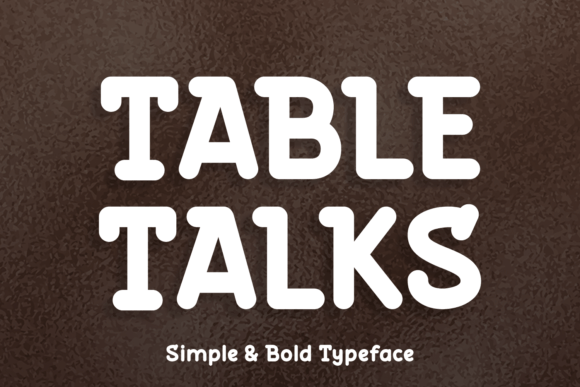
Table Talks: A Bold Display Typeface That Cuts Through the Feed
It’s 9:47 a.m., and I’m squinting at a YouTube thumbnail on my phone—halfway zoomed, thumb hovering over “send.” The background image is strong: warm lighting, clean product shot, just-right contrast. But the headline? It’s floating there in a safe, neutral sans serif—legible, yes, but forgettable. It doesn’t *land*. Not in under two seconds. Not when viewers scroll past 20 thumbnails before breakfast. So I swap it. In goes Table Talks.
That’s when everything tightens up. The letters are simple—but not plain. Bold—but not aggressive. Slightly rounded, with confident spacing and a quiet rhythm that feels handmade without sacrificing clarity. Table Talks isn’t trying to be cute or nostalgic. It’s direct. Friendly, but focused. Like someone leaning in to say something worth hearing.
We used it across our latest seasonal campaign: a 7-day Instagram Stories series for an independent ceramics brand launching their summer collection. For each day, we needed a short, punchy phrase—“Glazed in Sunlight,” “Hand-Thrown, Heat-Tested,” “No Two Alike”—that worked as both text overlay and standalone visual anchor. Table Talks handled all of it: crisp at 32px on mobile, expressive at 84px on desktop banners, legible even over textured photography or soft gradients.
This is where Table Talks shines—not as body copy, not as paragraph text, but as display. It’s built for moments that demand attention in under a glance. Think: Reels covers with bold callouts (“New Drop Live!”), Pinterest pins with quote graphics (“Clay remembers your hands”), email headers that stop thumbs mid-scroll, or Shopify banner text that holds its own beside high-res product imagery.
It’s not just about size—it’s about role. Table Talks works best for short, high-impact text: headlines, labels, campaign tags, logo-style wordmarks (especially for artisanal or lifestyle brands), packaging accents, and social-first captions designed to be read *before* the image fully loads. We avoided using it for anything longer than six words—and never for fine print, disclaimers, or multi-line descriptions. That’s where our pairing came in: a clean, neutral sans serif (we used Inter Regular) for supporting text. The contrast gave hierarchy without competition—Table Talks said “look here,” and Inter said “here’s why.”
Readability on small screens was non-negotiable. We tested Table Talks across devices: light text on dark backgrounds (great contrast, no halo), white text over sun-drenched photos (held up beautifully thanks to its generous x-height and open counters), and even reversed-out text on subtle linen textures (no blurring, no loss of shape). Its letterforms breathe—no cramped terminals or overly tight kerning—so even at 24px on a thumbnail, “Limited Stock” felt urgent, not cramped.
We also checked what came in the package—because nothing derails a campaign like missing weights or unsupported characters mid-design. Table Talks includes one robust weight (Bold), with stylistic alternates for key letters (a playful ‘g’, a grounded ‘Q’), optional ligatures for smoother pairings like “ff” or “tt”, and full Latin multilingual support—including accented characters used across Spanish, French, and Portuguese markets. No surprises. No last-minute swaps. Just clean, commercial font licensing that covers digital ads, client templates, merch mockups, and even embedded web fonts via @font-face.
Real talk: we didn’t use Table Talks for every graphic. When we needed elegance for a webinar invitation, we reached for a refined serif. When illustrating a handwritten note in a Story, we pulled in a light script font. But for anything that needed to signal confidence, warmth, and immediacy—Table Talks was our go-to display typeface. It showed up consistently across assets without feeling repetitive, because its personality stayed constant while its context shifted: bold on a product label, friendly on a quote pin, grounded on a landing page header.
And yes—we tested thumbnails with and without it. Same image. Same color palette. Same copy. Just different fonts. The version with Table Talks got more pause time in internal reviews. More double-taps in early testing. Not because it’s “trendier,” but because it removed friction between message and meaning. People didn’t have to work to read it. They just *got it*—and kept scrolling, or tapped, or remembered the phrase later.
That’s the quiet power of a well-chosen display font. It doesn’t shout over your visuals—it clarifies them. Table Talks doesn’t ask for attention; it earns it by making your words feel intentional, human, and easy to trust. Whether you’re building a set of YouTube thumbnails, prepping a week of Pinterest pins, designing a limited-run sticker pack, or setting the tone for an online shop banner, it gives your message a voice that’s both simple and unmistakable.
If you're working with handcrafted goods, wellness content, creative courses, boutique packaging, or any brand where authenticity meets clarity—Table Talks fits like a well-worn tool. Not flashy. Not fussy. Just ready to make your next campaign easier to see, faster to understand, and more memorable to hold onto.
- Use Table Talks for headlines, labels, quotes, and campaign-specific text—not long paragraphs
- Pair it with a neutral sans serif (like Inter or Manrope) for balance and readability
- Test it on mobile previews: check contrast over photos, legibility on dark/light backgrounds, and spacing in tight thumbnails
- Verify included styles—alternates, ligatures, language support—before locking in for client or commercial use
- Remember: great display typography doesn’t distract. It directs.